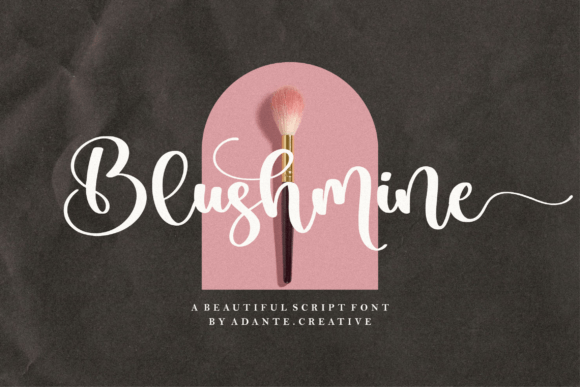
About Blushmine Font
Blushmine is more than just a font; it’s a handwritten calligraphy script that brings elegance and charm to your designs. Perfect for product packaging, branding projects, magazines, social media, weddings, and more, Blushmine adds a touch of sophistication to any creative endeavor.
The calligraphy style of Blushmine is carefully crafted, featuring fluid and graceful strokes that convey a sense of beauty and grace. Whether you’re designing product packaging or creating a brand identity, Blushmine ensures that your designs exude a refined and stylish quality.
In branding projects, Blushmine becomes a perfect choice for those seeking a touch of sophistication. The handwritten calligraphy script adds an element of elegance that makes your brand stand out, creating a memorable and visually appealing identity.
For magazines and social media, Blushmine’s graceful strokes add a layer of charm. Whether used in headlines or as part of a social media post, the font brings a sense of beauty and sophistication to the visual elements.
Blushmine is also an excellent choice for weddings, capturing the romantic and elegant essence of such special occasions. From invitations to wedding signage, the calligraphy script enhances the overall aesthetic, adding a touch of timeless beauty.
With its PUA encoding, Blushmine goes beyond being a font; it offers access to a variety of glyphs and swashes with ease. This feature allows you to personalize and customize your designs effortlessly, making it a versatile tool in your creative toolkit.
In essence, Blushmine is a font that elevates your designs, bringing a handwritten calligraphy script that transforms your projects into visually stunning and refined works of art.